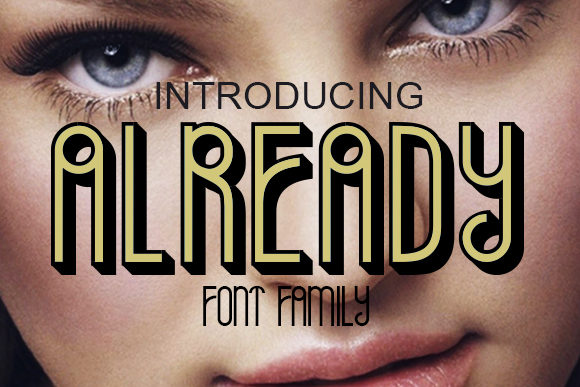
The Retro Charm of Already Font: A Designer’s Delight
I’ll never forget the time I was working on a vintage-themed poster for a client’s art deco-inspired event. I had all the design elements in place – the geometric patterns, the metallic colors, and the elegant illustrations – but something was missing. That’s when I stumbled upon the Already font, and it instantly elevated my design to a whole new level. The bold, luxurious feel of this retro font family perfectly captured the essence of the Roaring Twenties, and I knew right then that I had to share it with fellow designers and creative enthusiasts.
• ✅ Unique Art Deco aesthetic: Already font boasts a distinctive, vintage charm that’s hard to find in modern fonts.
• ✅ Highly versatile: This font family works beautifully for both digital and print designs, from posters and flyers to social media graphics and website headers.
• ✅ Elegant and sophisticated: The bold, geometric lines and luxurious feel of Already font make it perfect for designs that require a touch of glamour and sophistication.
• ⚠️ Limited use for body text: Due to its bold and decorative nature, Already font is best suited for headings and titles rather than large blocks of text.
• ⚠️ Glyph limitations: While the font has a range of OpenType features and stylistic alternates, it may not have as many glyphs as some other font families.
The Story Behind Already Font: Designer Inspiration
Although the origins of Already font are shrouded in mystery, it’s easy to imagine that it was inspired by the opulent designs of the Roaring Twenties. Perhaps the designer, fueled by a passion for art deco and vintage typography, set out to create a font that would evoke the glamour and sophistication of a bygone era. Whatever the story, Already font is a testament to the power of typography to evoke emotions and transport us to another time and place.
Q: What makes Already font so special?
A: Already font’s unique blend of art deco and vintage elements, combined with its bold and luxurious feel, make it a standout in the world of typography.
Q: Is Already font suitable for body text?
A: While Already font is beautiful and elegant, it’s best suited for headings and titles rather than large blocks of body text.